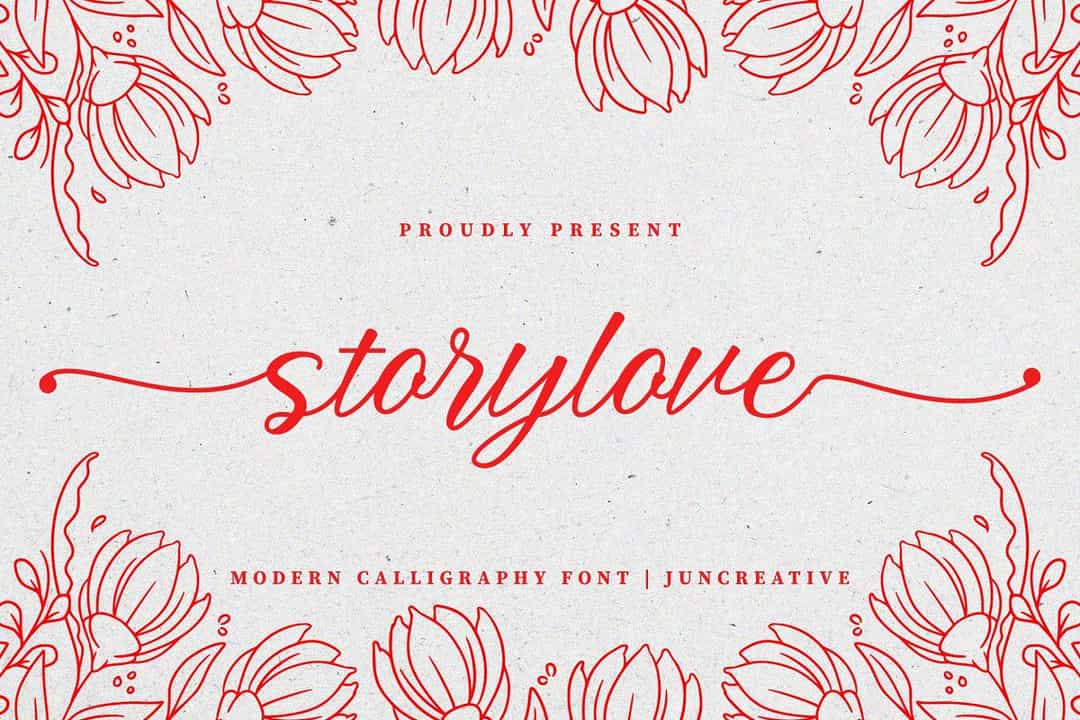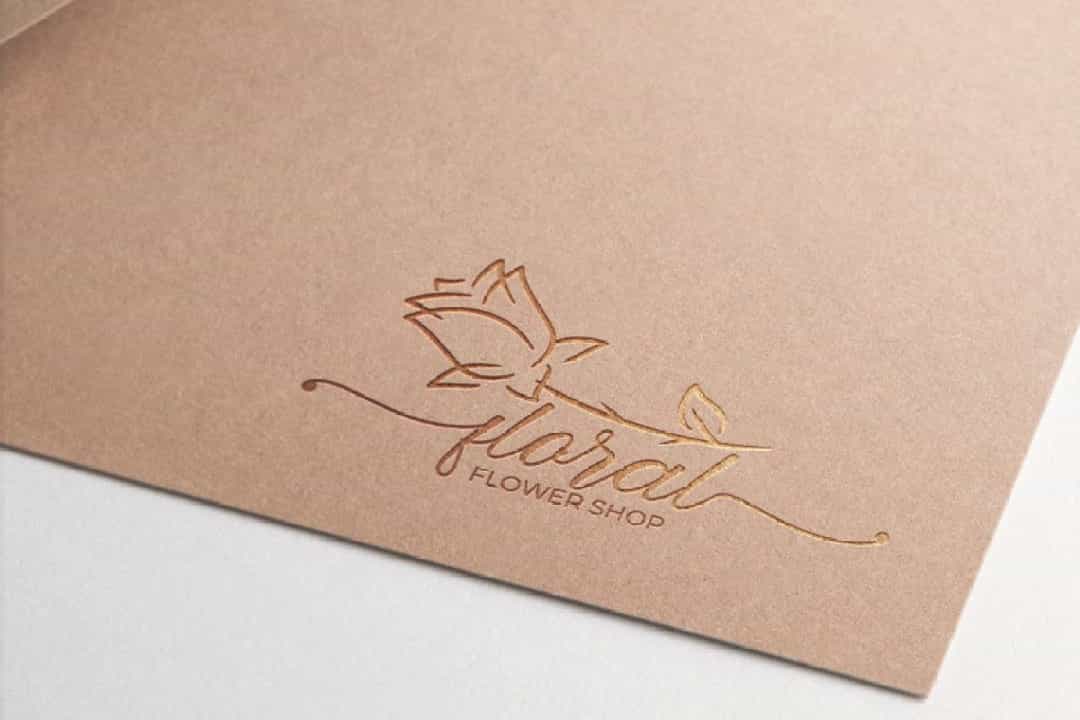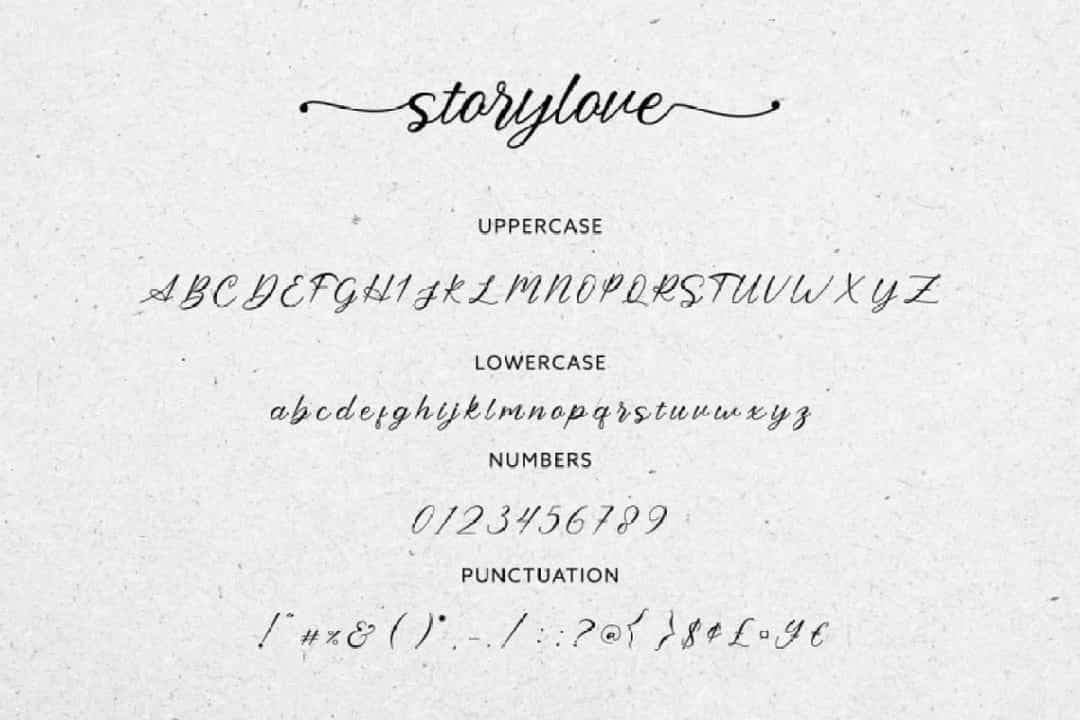
The Storylove font is an eye-catching calligraphy font featuring both beginning and end swashes for natural-looking script calligraphy, perfect for any design! You will quickly fall in love with its incredible versatility when creating stunning designs!